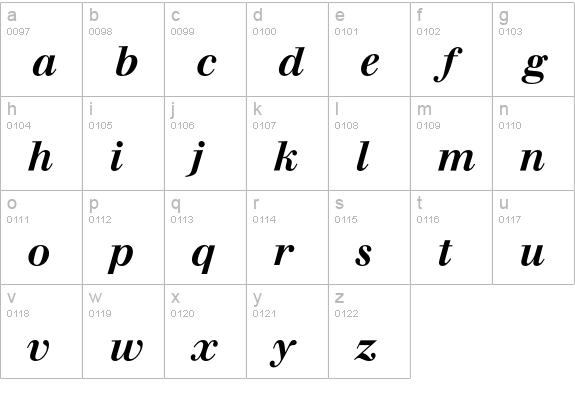
Walbaum Buch Medium Italic Font Details
Walbaum Buch Medium Italic is a balanced, medium-weight, italic variant in the Walbaum typeface family \xE2\x80\x94 well suited to sub-headlines, navigation, and balanced editorial work.